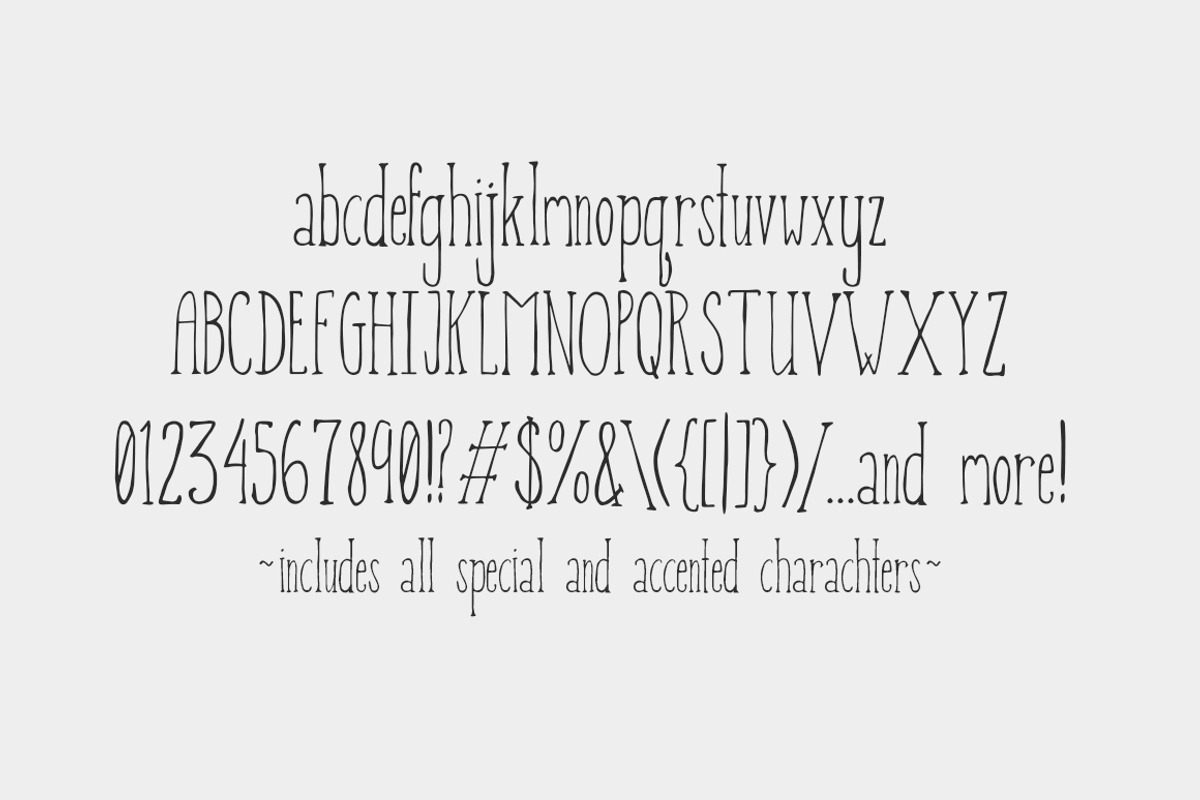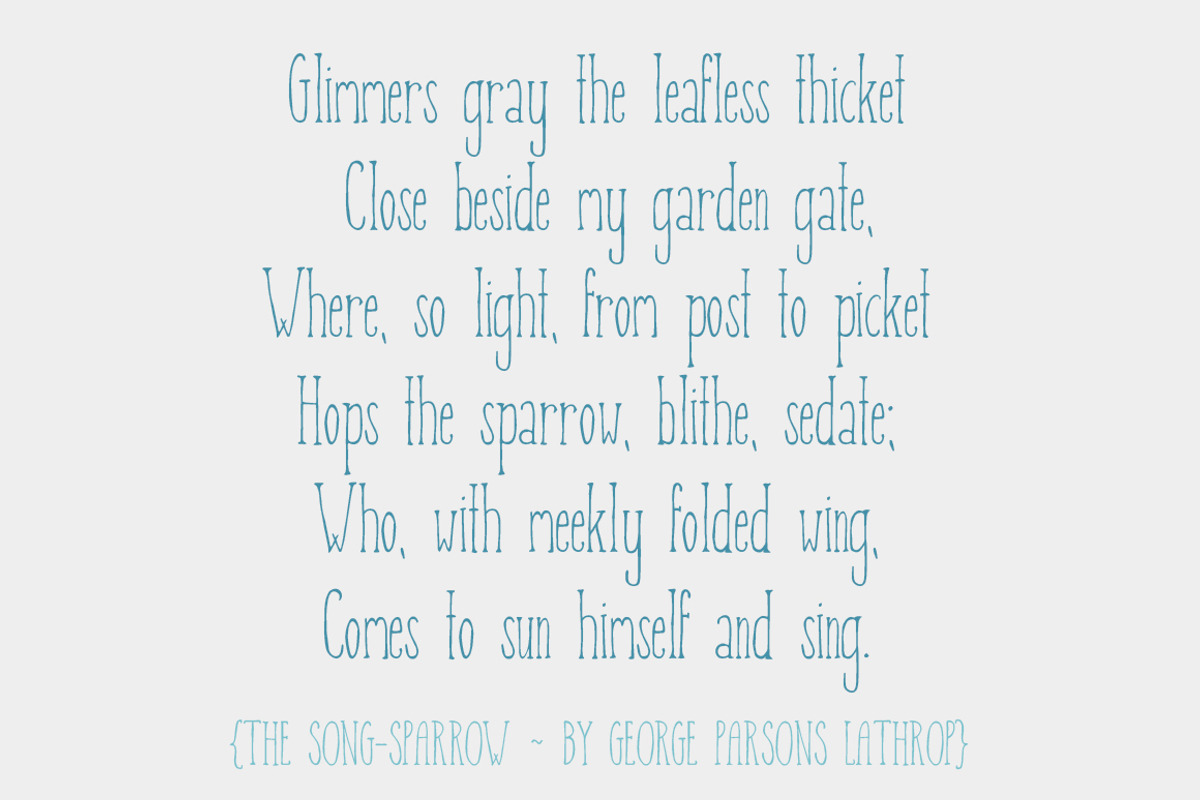
Picket Fence - Handdrawn Font
Picket Fence - Handdrawn Font by plaidGecko is a font selected for branding, posters, packaging, typography.
- Features One weight Upper- and lower-case letters, punctuation, special and accented characters Unique, hand-drawn serif letters Tall, light
Picket Fence - Handdrawn Font by plaidGecko fits naturally into Branding, posters, packaging, typography.